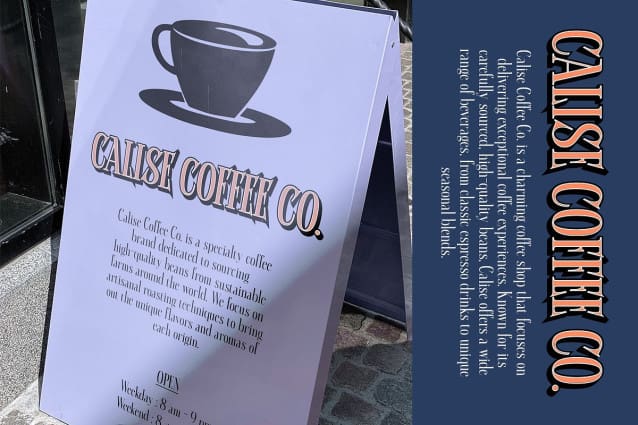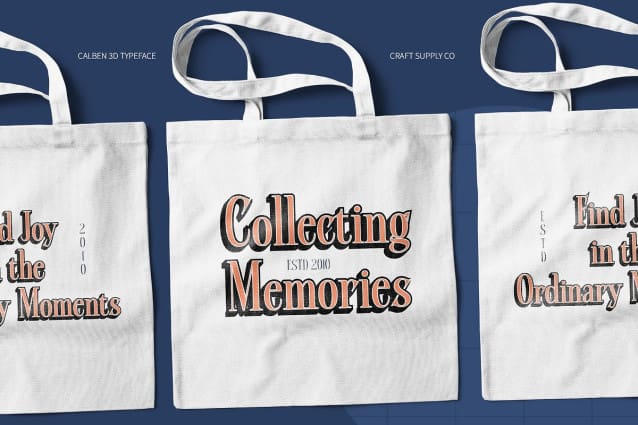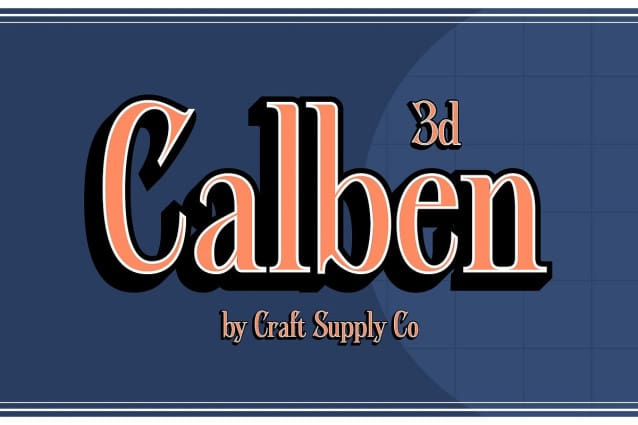
Calben 3D Font
Calben 3D Font is a modern serif font that seamlessly blends sophistication with contemporary elegance. Its refined, sleek serifs and clean lines give it a timeless appeal, while maintaining a modern edge that makes it perfect for upscale projects. This font brings a sense of professionalism and luxury to any design, offering a balance between classic elegance and modern flair.
Dynamic 3D Effect for Visual Intrigue The striking 3D effect of Calben adds a layer of depth and dimension, giving the font a dynamic presence. The subtle yet captivating depth enhances the overall design, drawing attention and providing a sense of texture and movement. This effect ensures that the font stands out in both digital and print formats, making it ideal for designs where visual intrigue and impact are key.
A Stylish and Polished Choice for Modern Designs This font’s versatility and elegance make it suitable for a wide range of projects, from corporate branding to editorial content. The combination of sleek serifs and 3D depth ensures that Calben 3D offers both a polished look and a stylish presence, ideal for designs that require sophistication with a modern twist. Whether used for luxury advertising, upscale editorial work, or high-end product packaging, this font delivers a timeless yet contemporary aesthetic that resonates with discerning audiences.